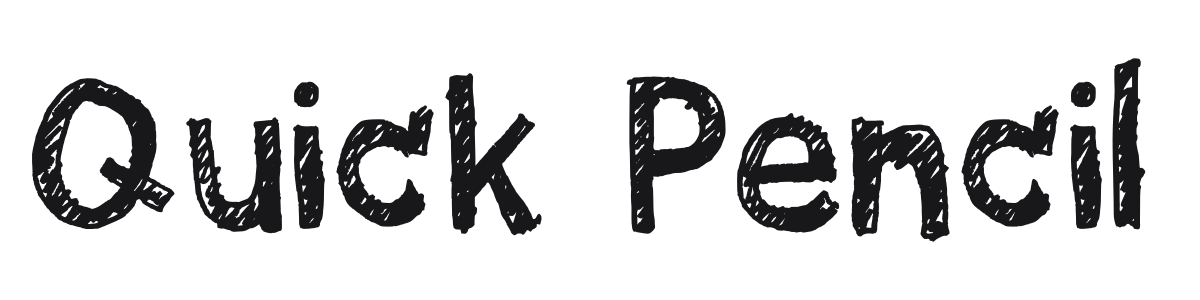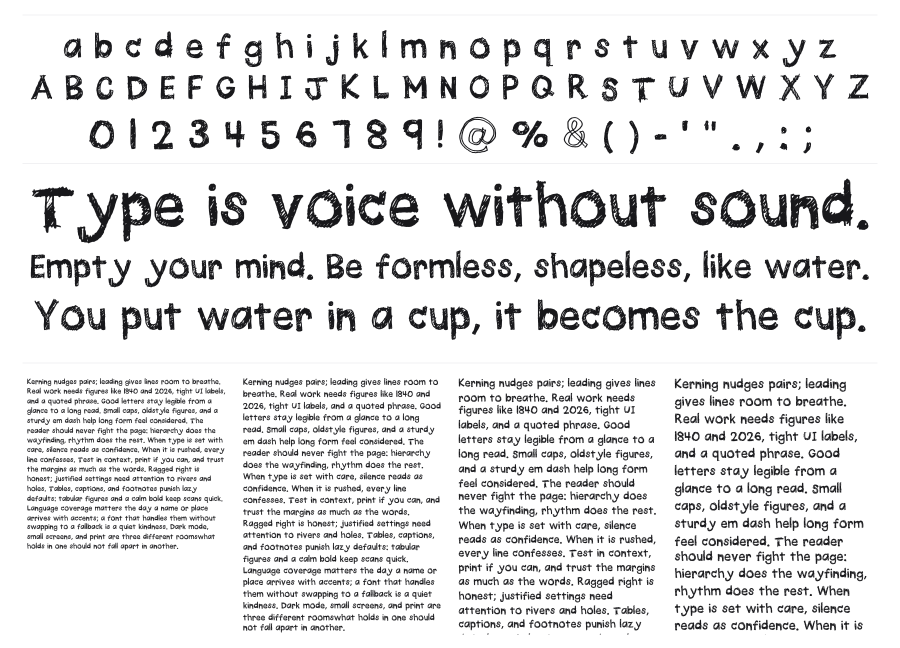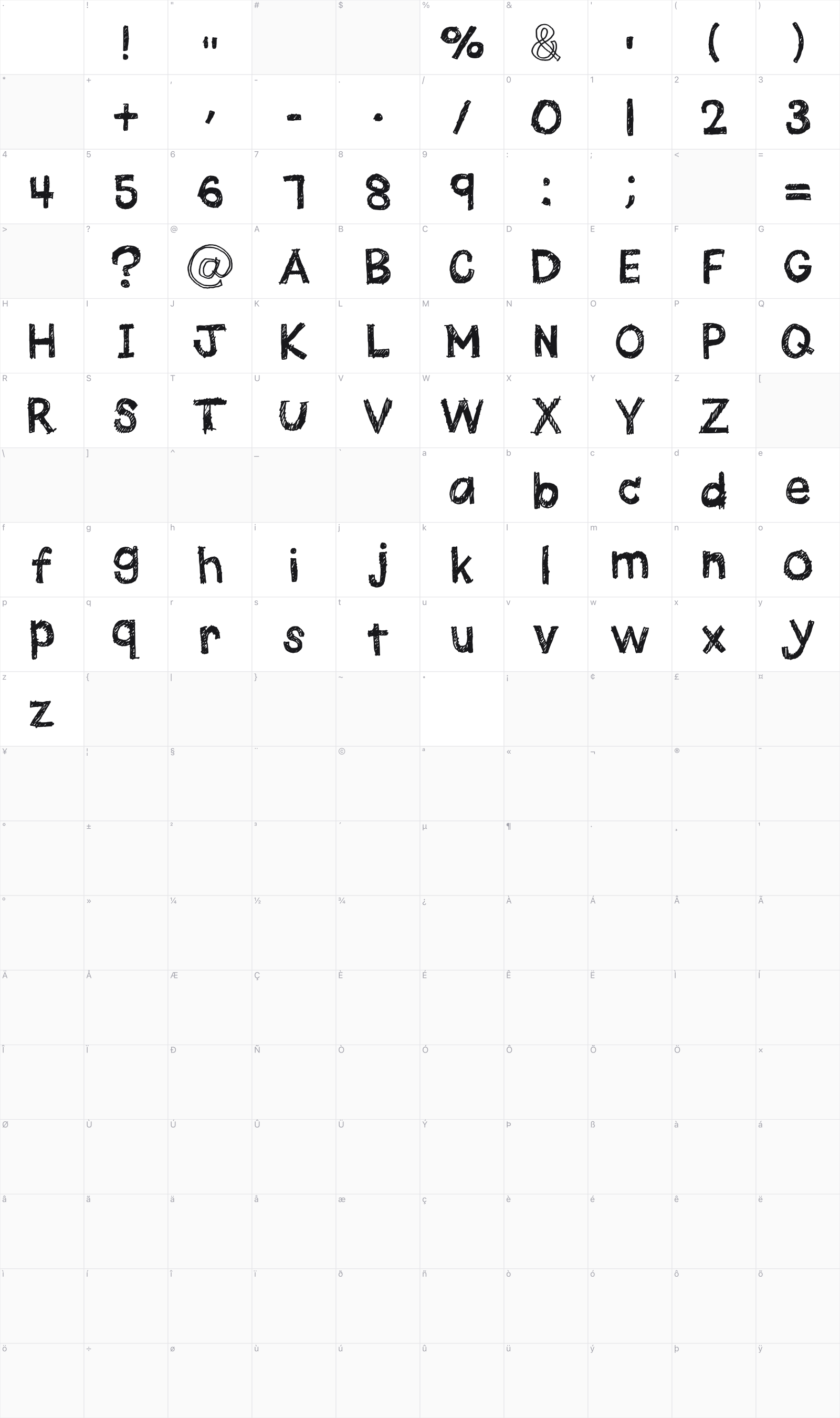
Quick Pencil
Quick Pencil is a handwritten display font that simulates the look of fast, rough pencil strokes with a scribbled, sketchy texture on every character. The rounded, block-letter structure keeps it legible while the uneven stroke fill gives it unmistakable hand-crafted energy. It works well for anything that needs a spontaneous, personal touch without feeling too polished.